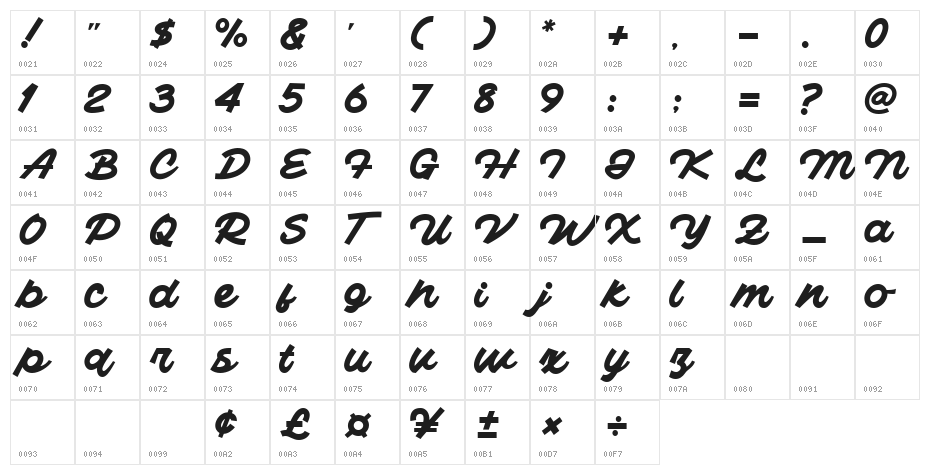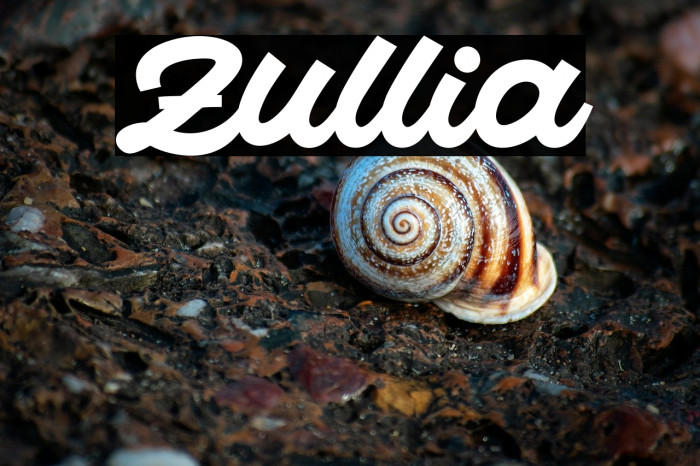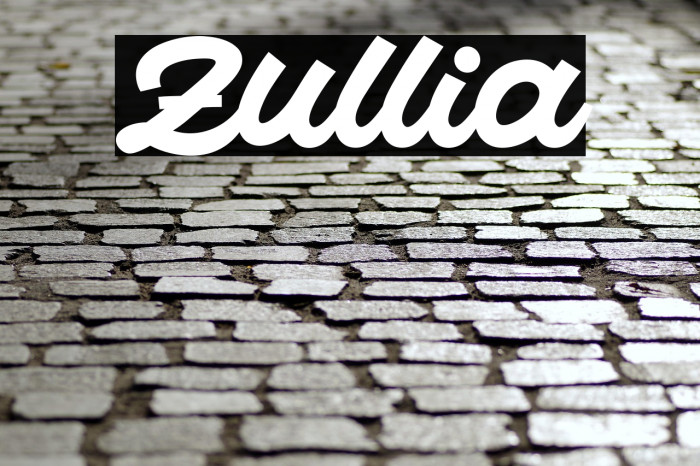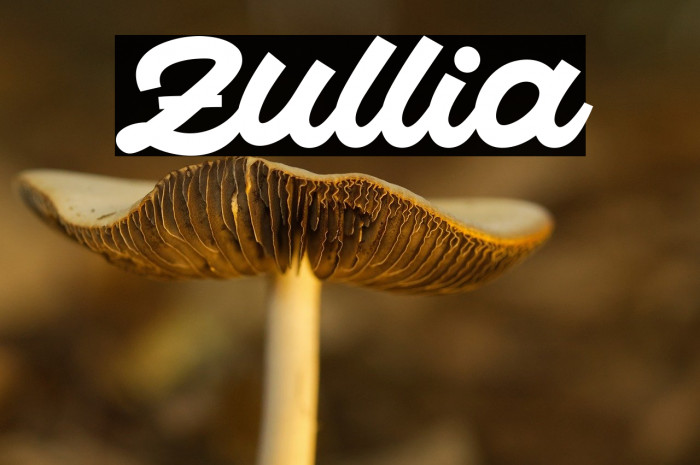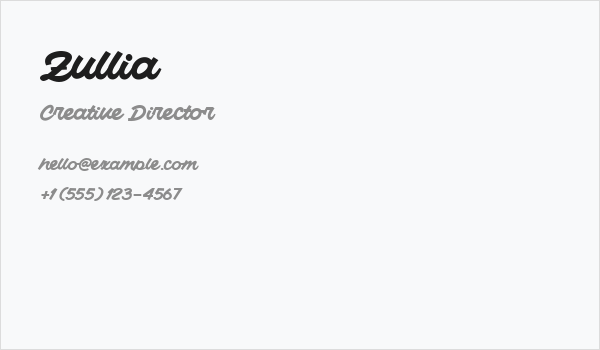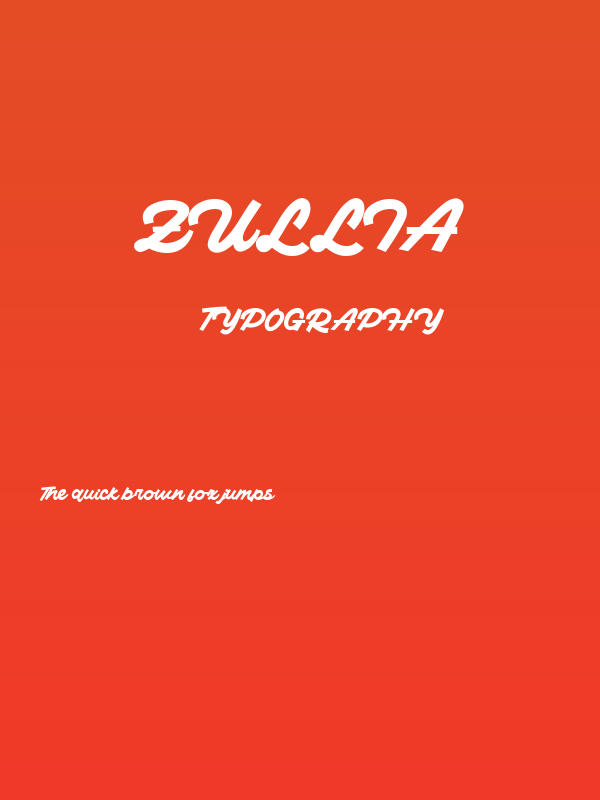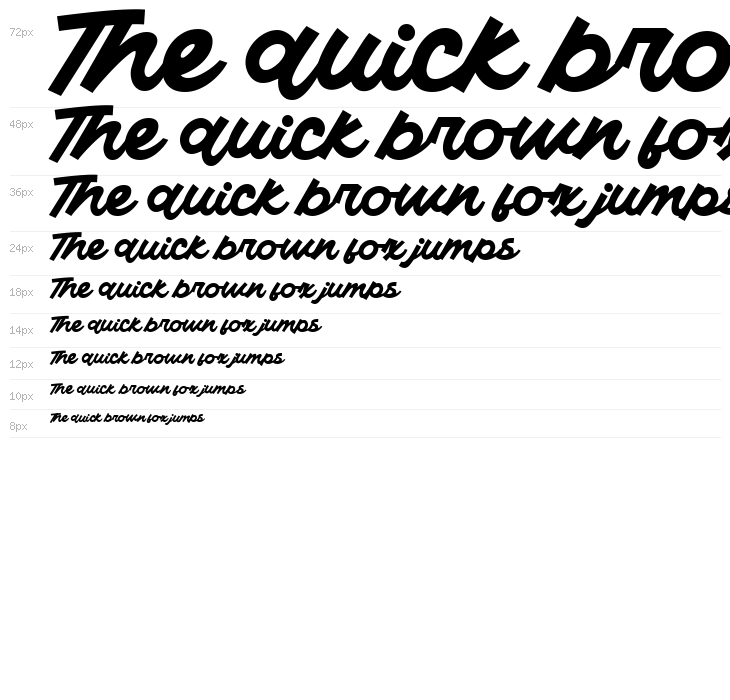
Zullia Font
Zullia Description
This font exhibits a bold and dynamic script style, characterized by its flowing, cursive letterforms that convey a sense of movement and elegance. The uppercase letters are slightly slanted, adding to the fluidity, while the lowercase letters maintain a consistent and harmonious flow. The numerals are bold and clear, ensuring readability. Special characters are designed with the same attention to detail, integrating seamlessly with the overall aesthetic. The font's bold weight and medium contrast in stroke thickness make it stand out, suitable for impactful designs.